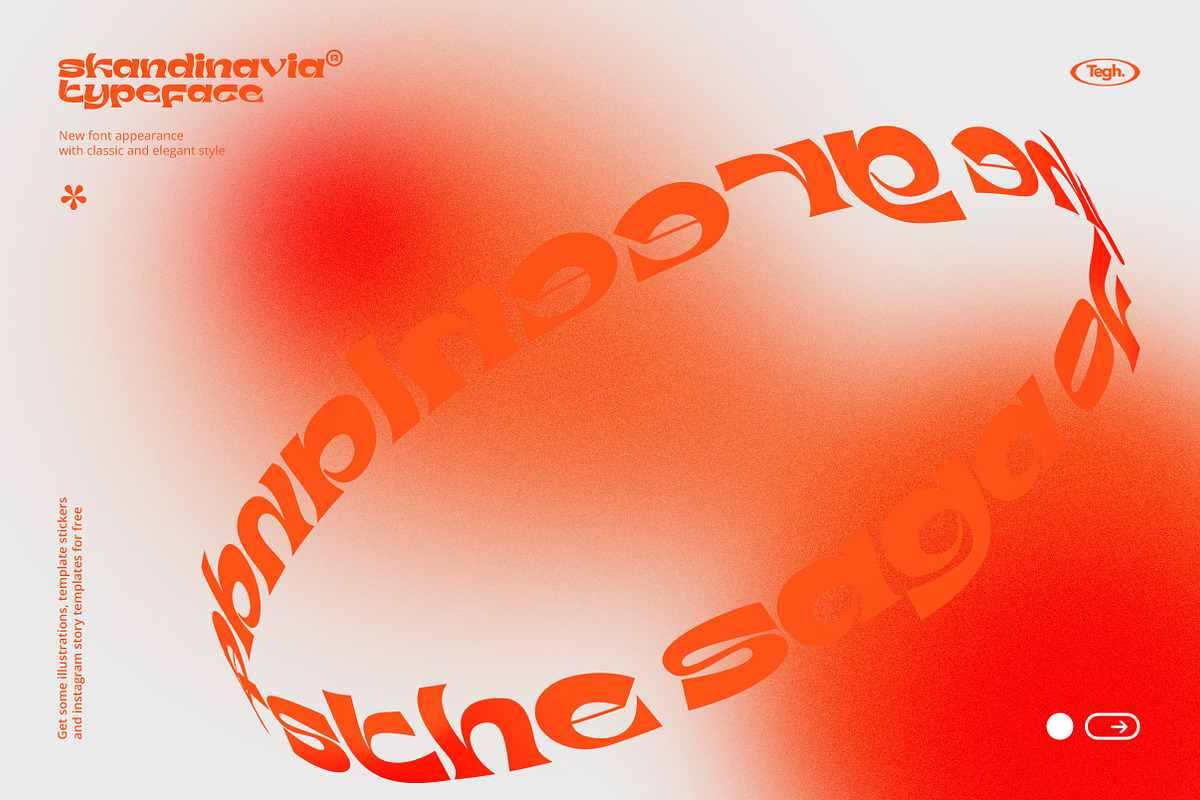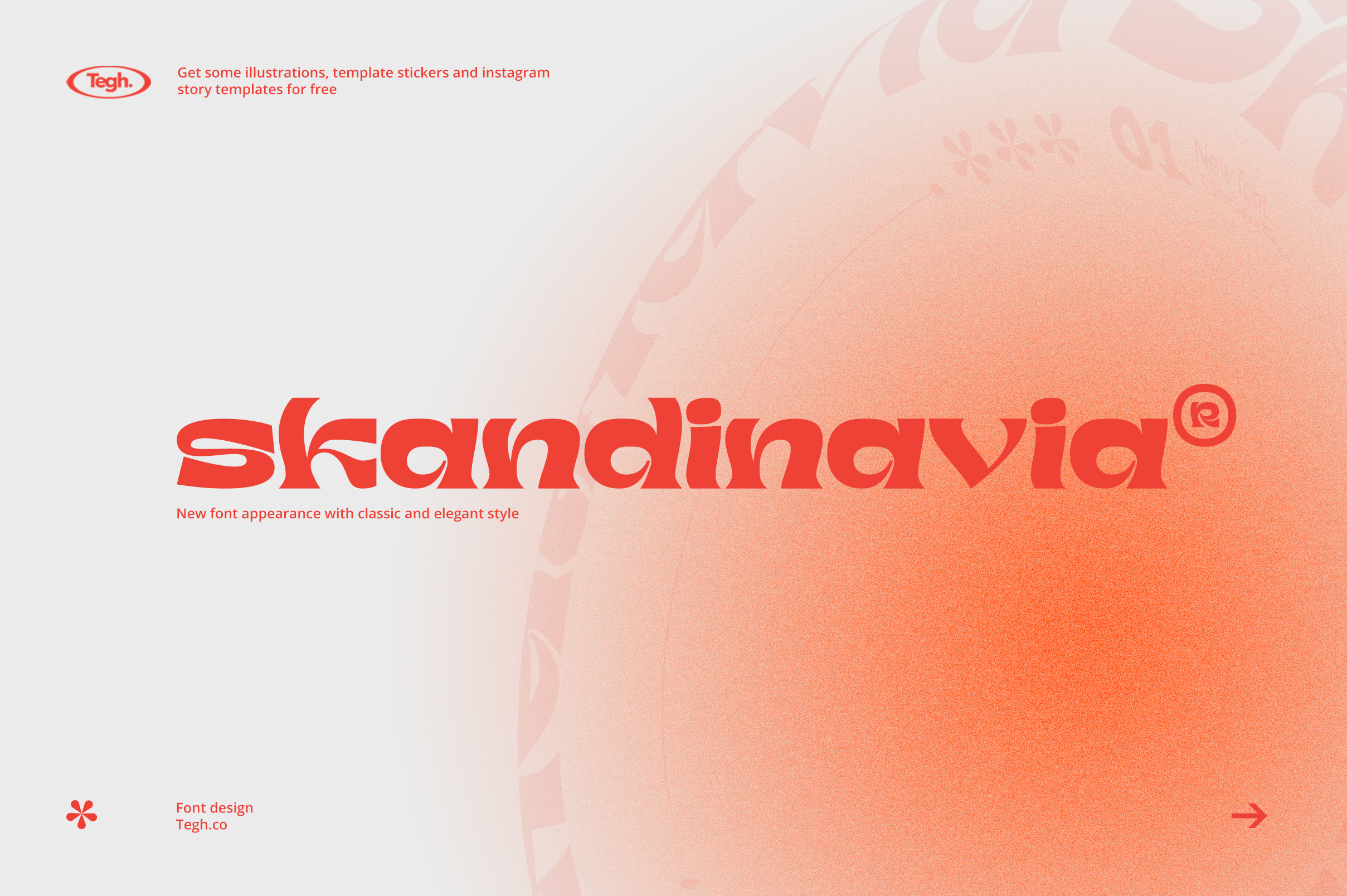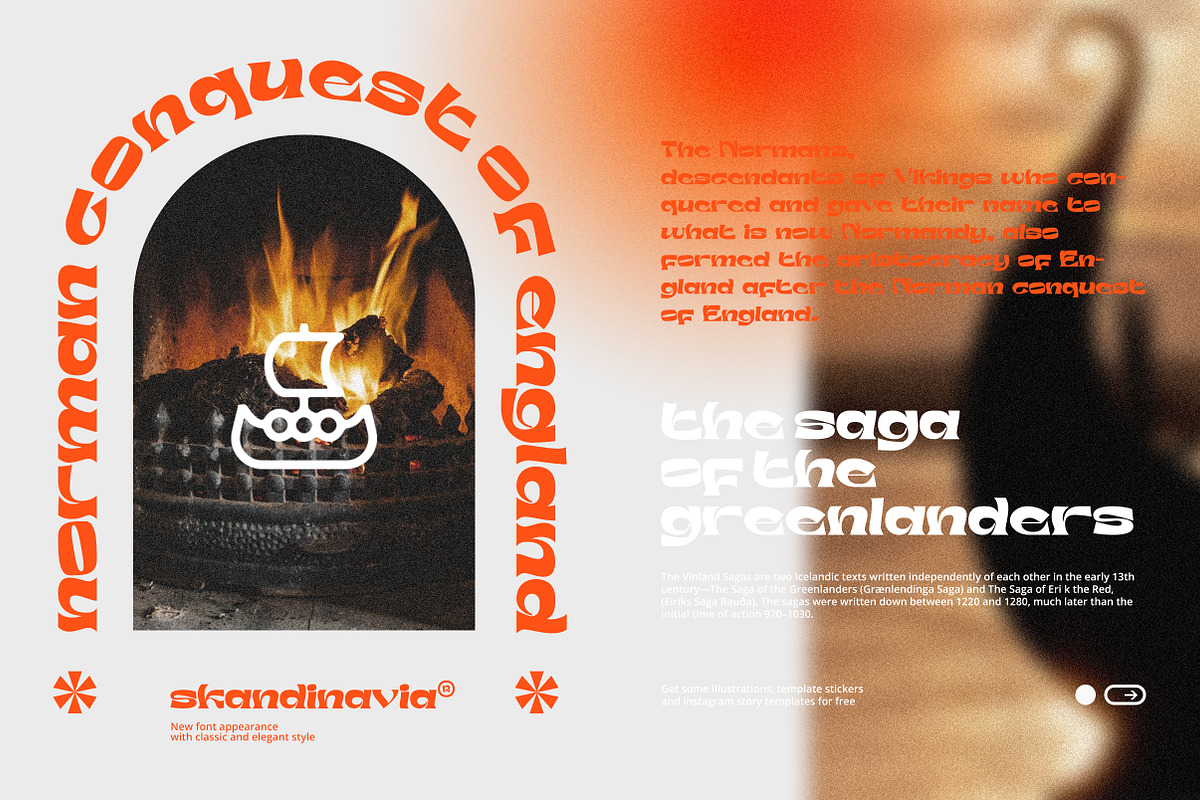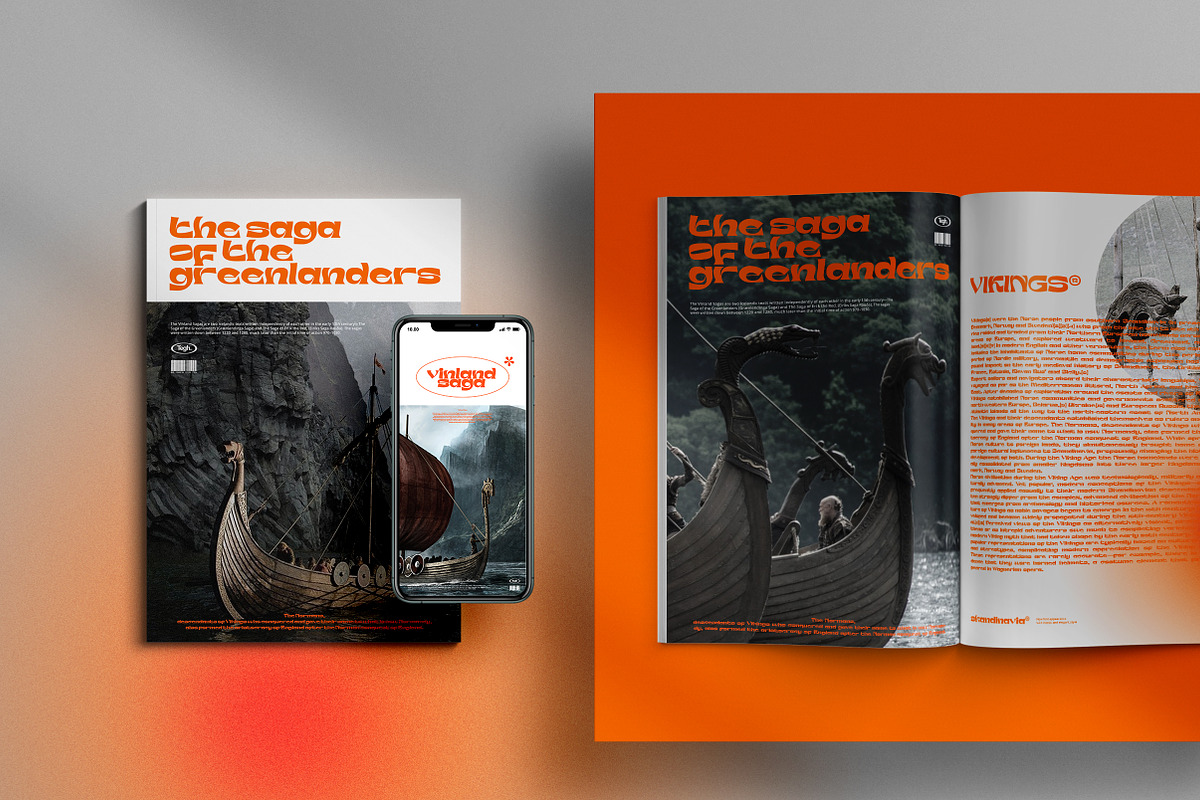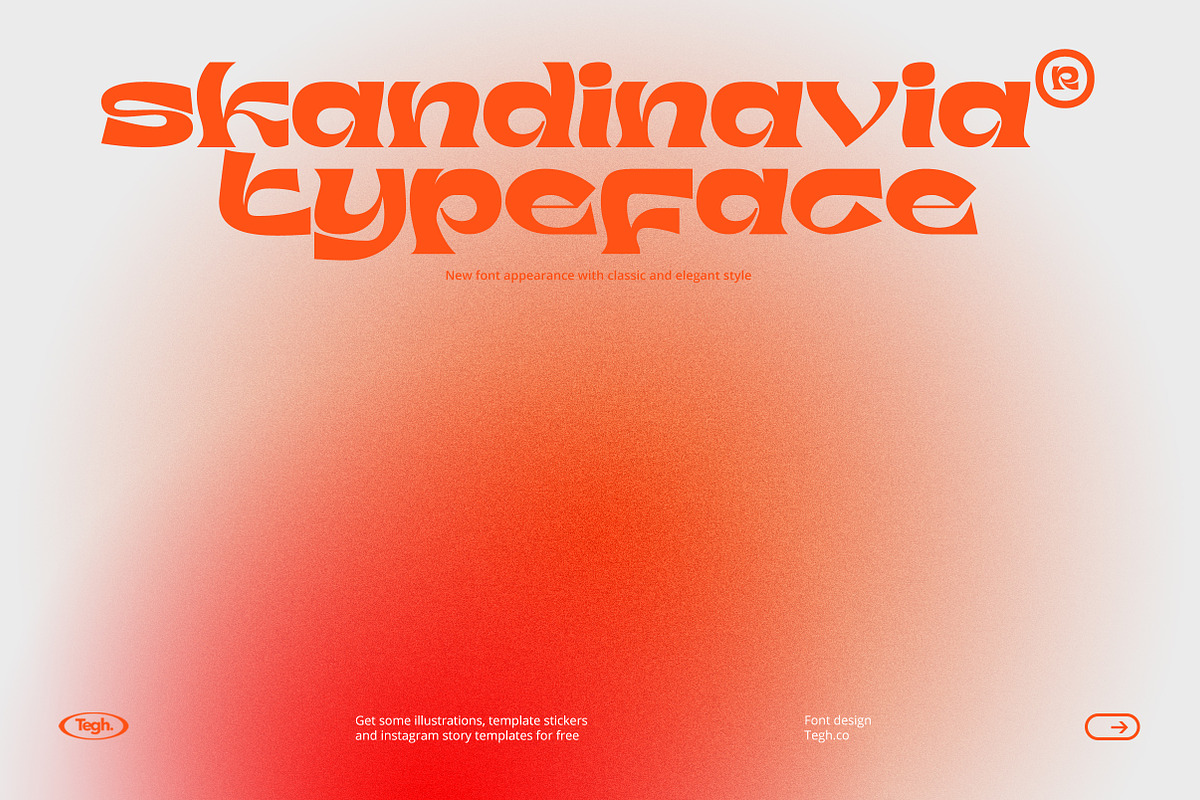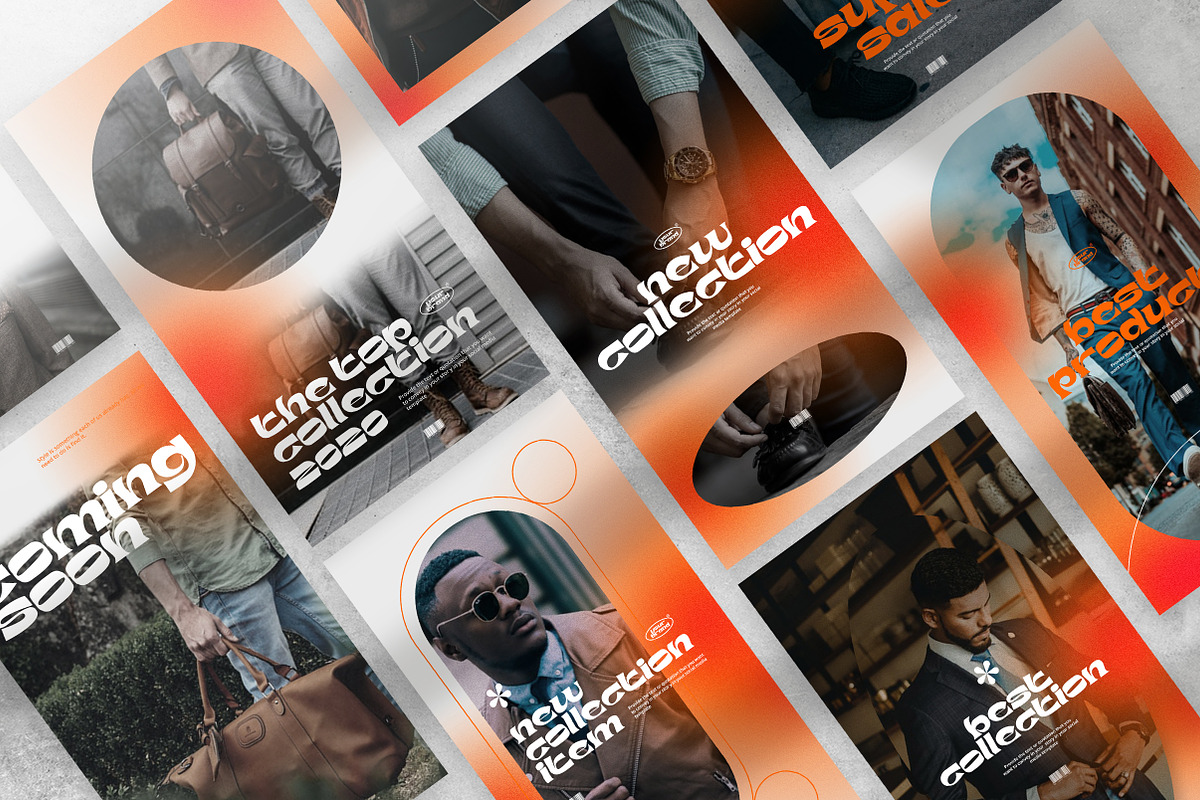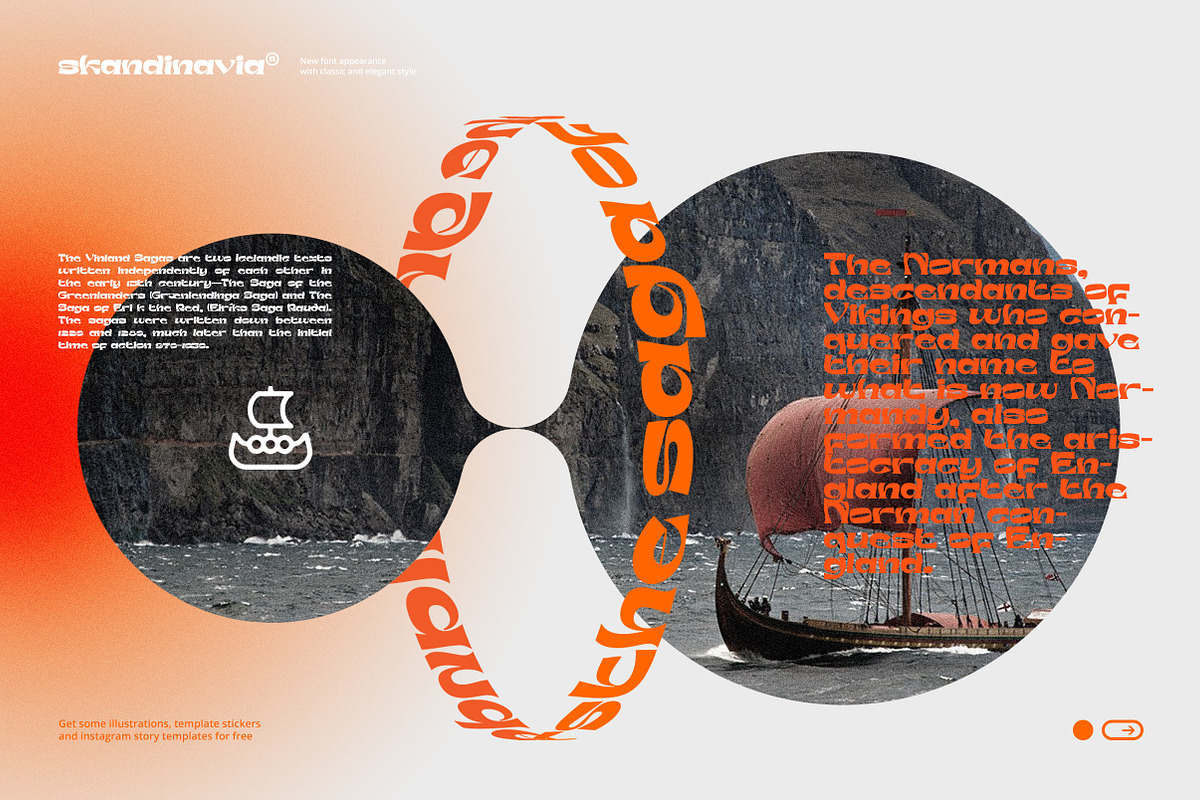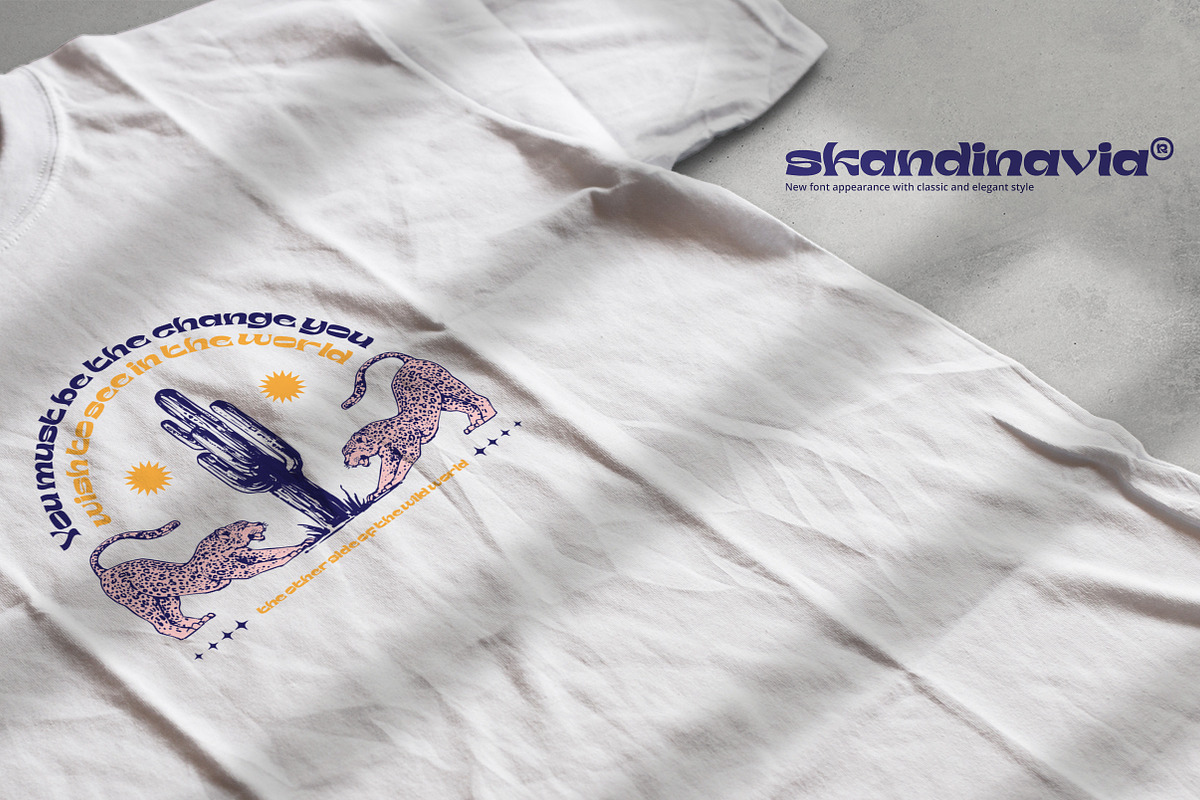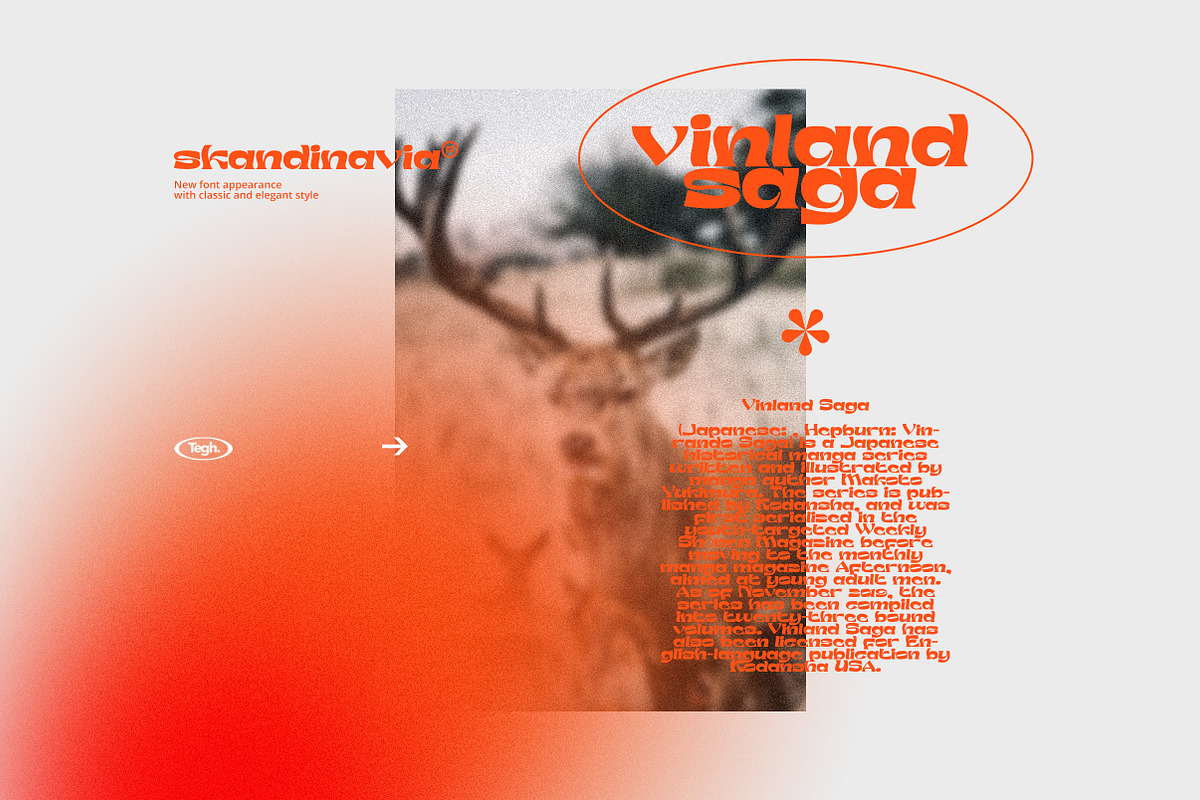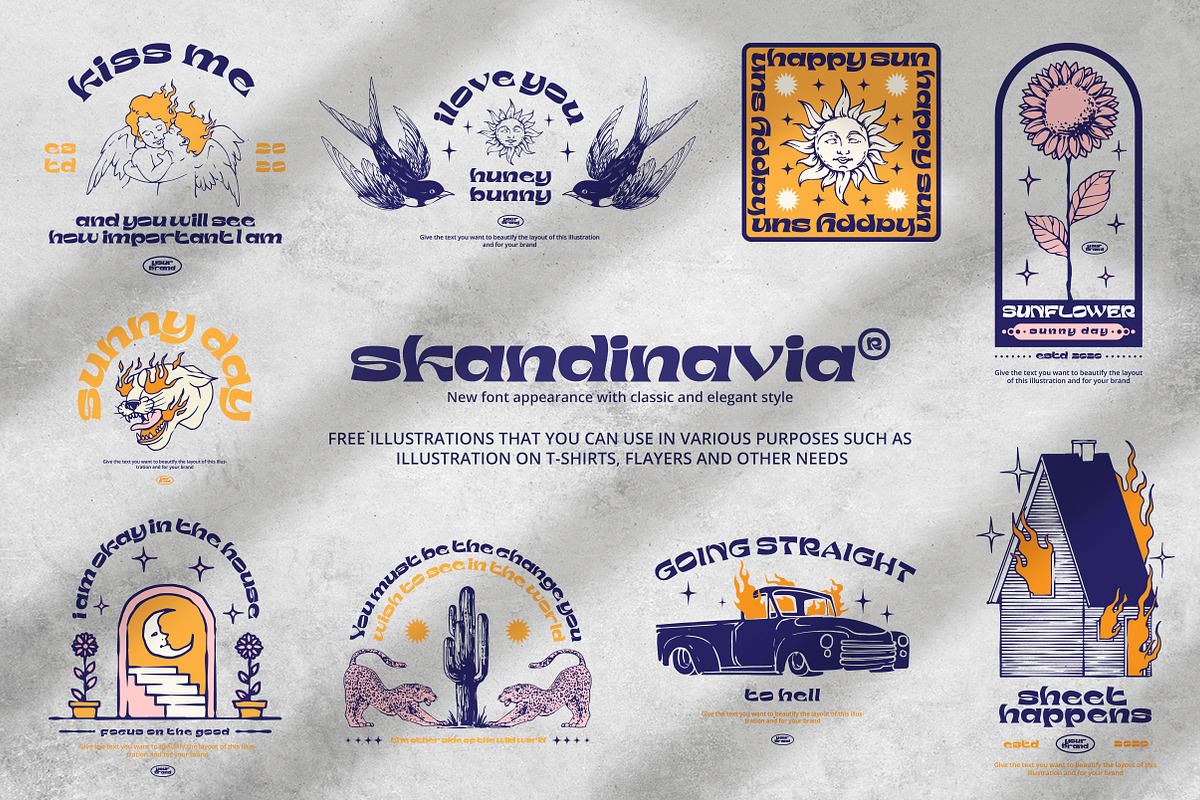
Skandinavia Display Font
I want to make a font that makes it easier for me to do designs such as illustration and other design needs, and I decided to create a new font. I want to make a font that makes it easier for me to do designs such as illustrations and others. design needs, and I decided to create a new unique letter that has a classic modern feel. the letters I created are perfect for your design needs. Scandinavian fits perfectly with nostalgic moodboards and vintage logos. It comes with unique lowercase and uppercase letters plus numbers, punctuation marks & multilingual letters. I also provide bonus products that you can develop for your design needs such as FREE social media templates, illustrations and stickers that you can easily edit according to your needs.